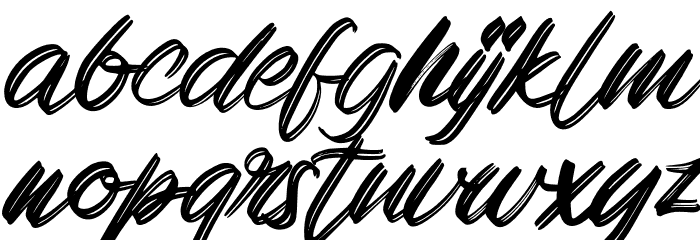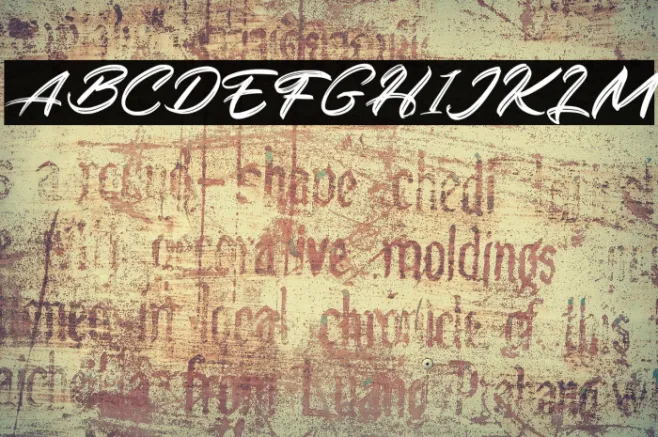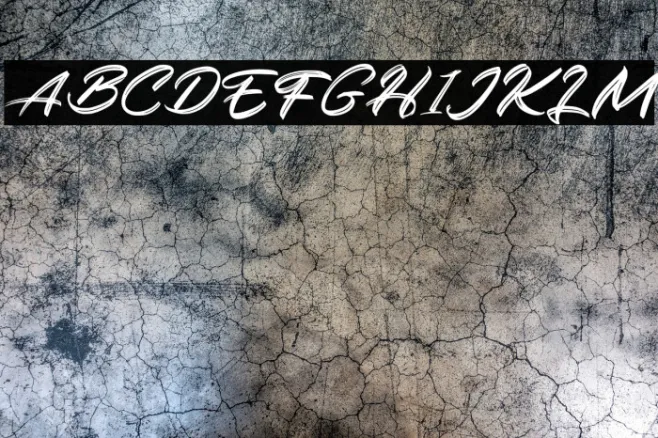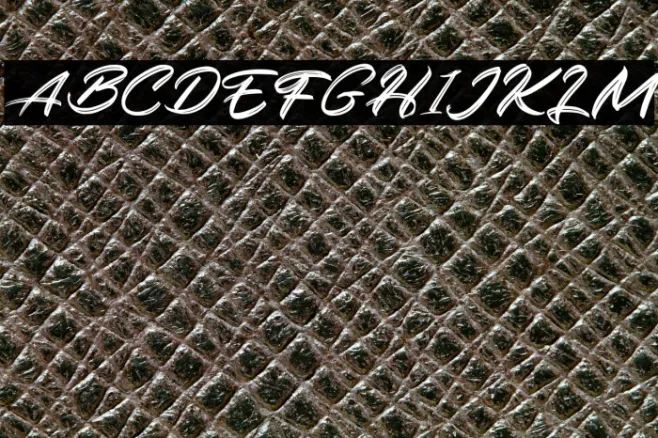
RegadFREE Font
This font exhibits a dynamic and energetic script style, characterized by its fluid, cursive strokes and bold presence. The letters are interconnected with sweeping lines, giving it a sense of motion and flair. The uppercase letters are slightly more restrained, maintaining a balance between elegance and expressiveness, while the lowercase letters are more flamboyant, with exaggerated loops and curves. The overall appearance is both artistic and modern, making it suitable for creative and eye-catching designs. The font's boldness and unique character make it stand out, ideal for projects that require a strong visual impact.
A bold, dynamic script font with fluid, interconnected strokes.
- Font: RegadFREE
- Proposed Projects: Ideal for branding, logos, invitations, and artistic posters.
- Category: Script
- Character Spacing: Tight
- Use Case: Logos, Headlines, Artistic designs